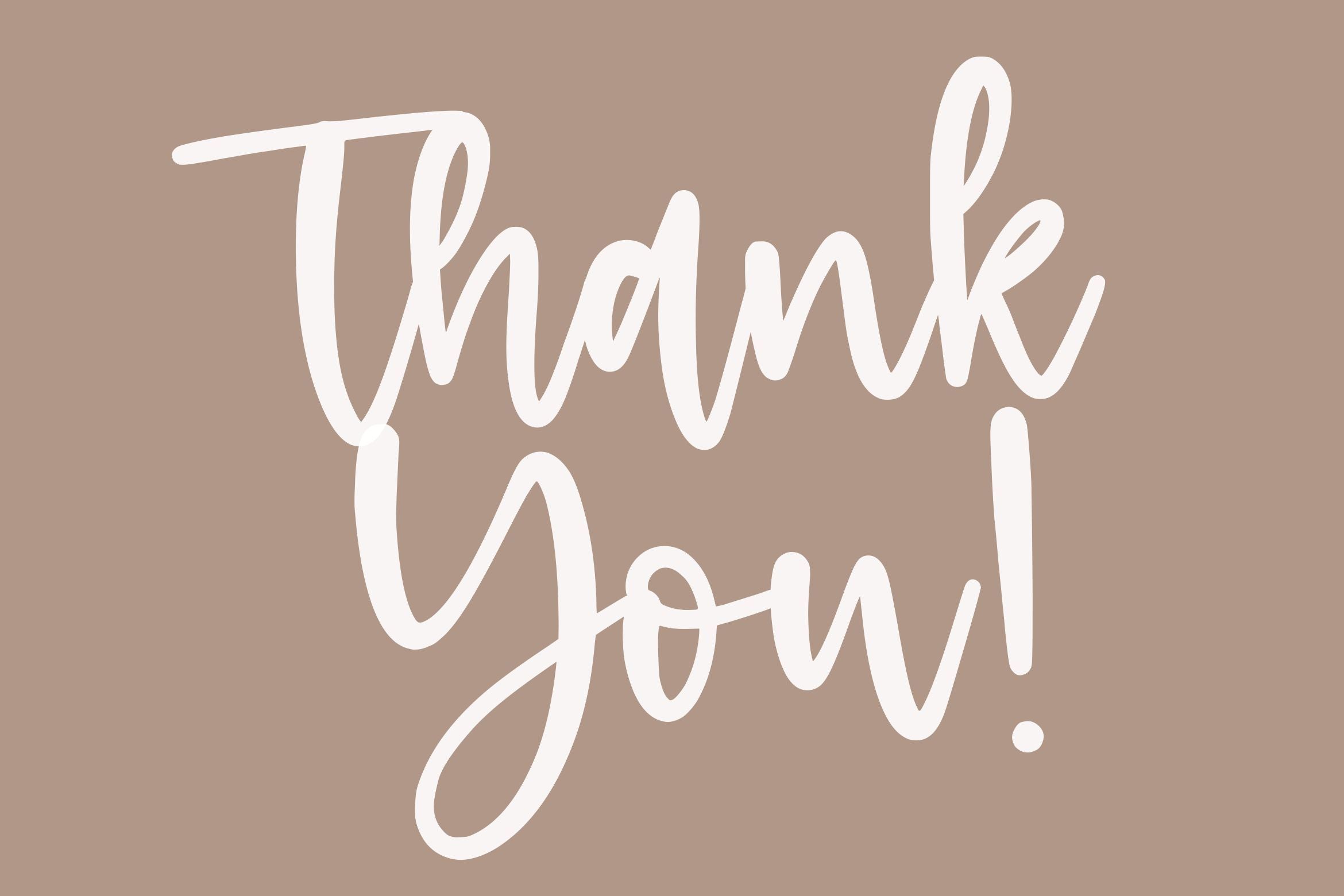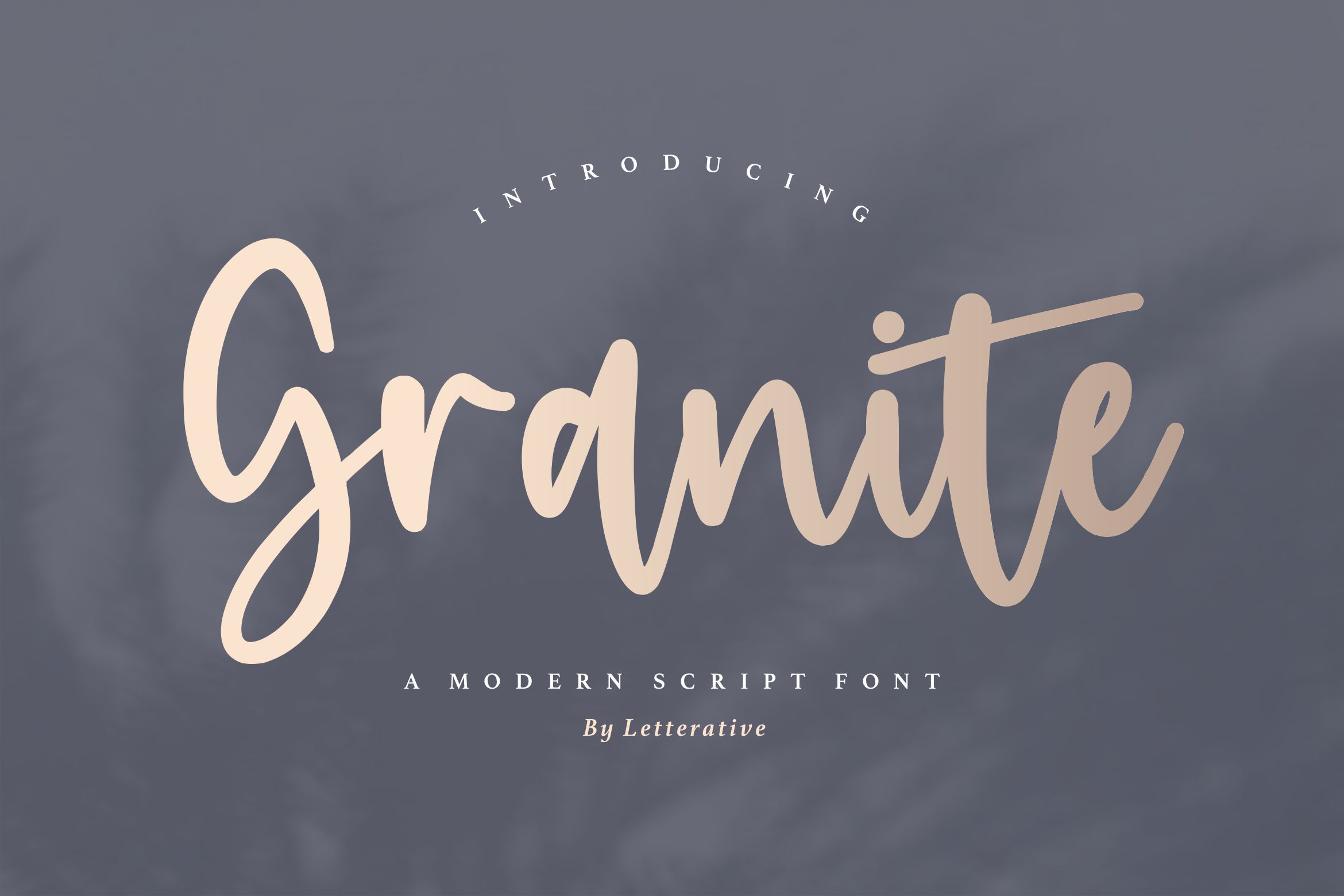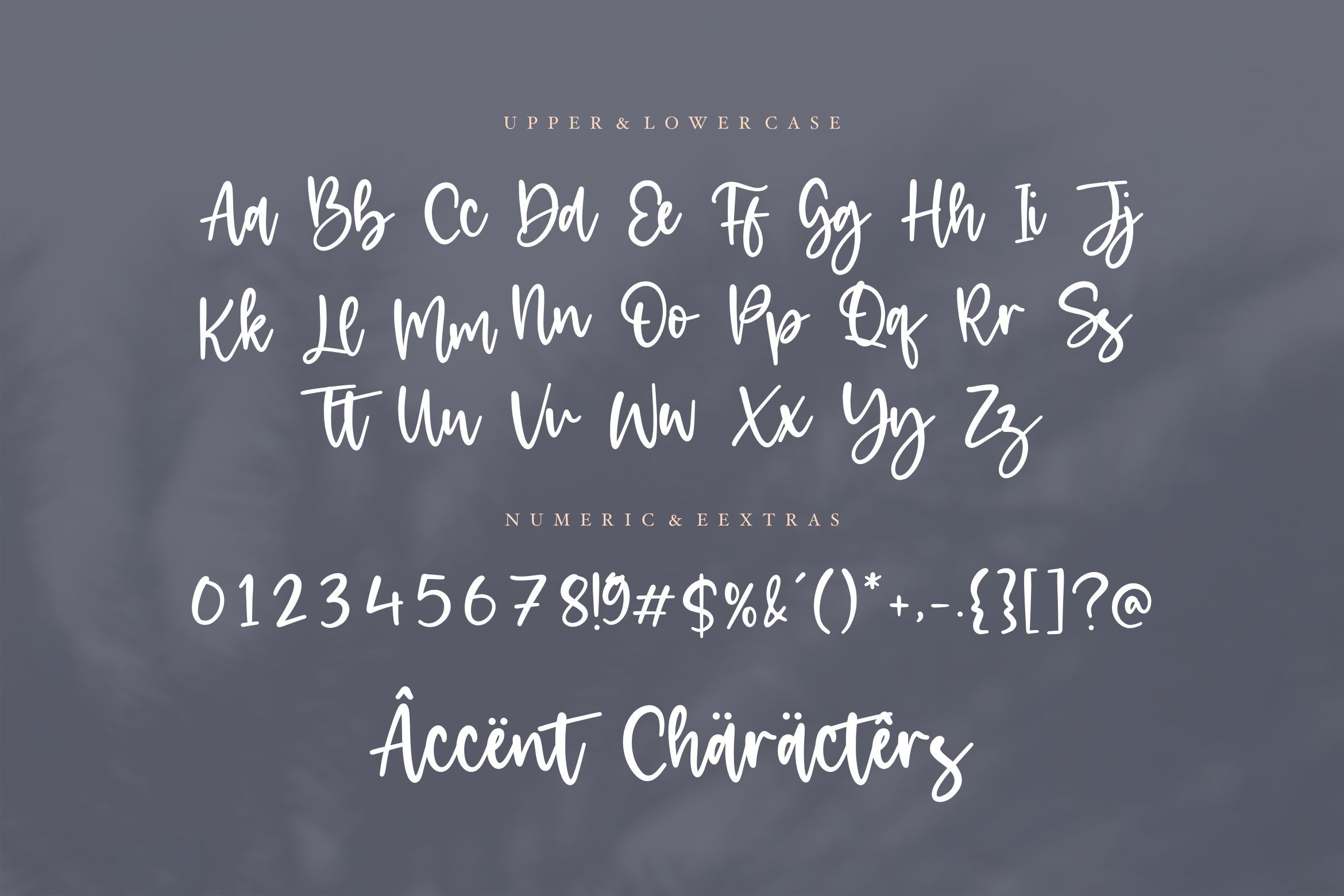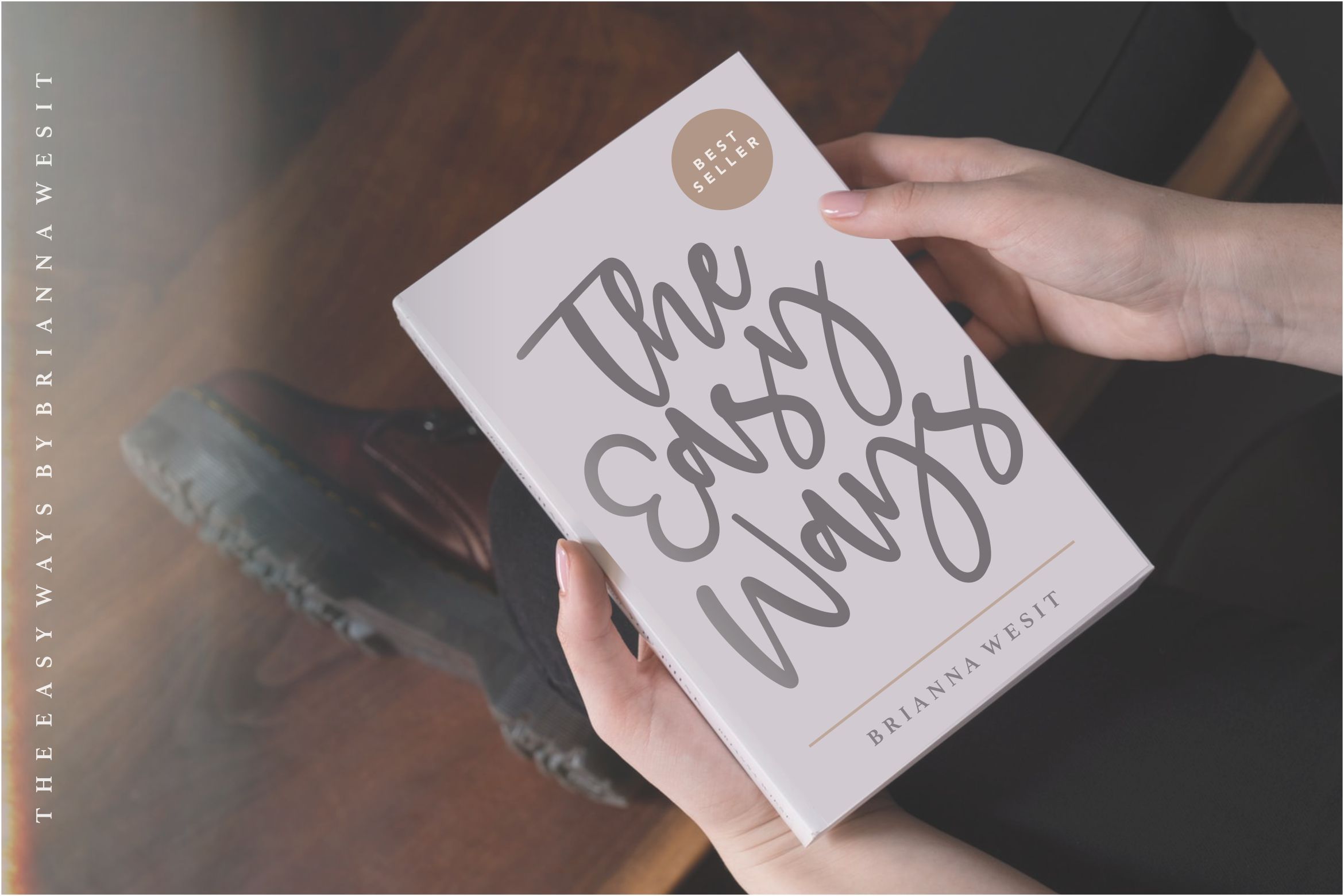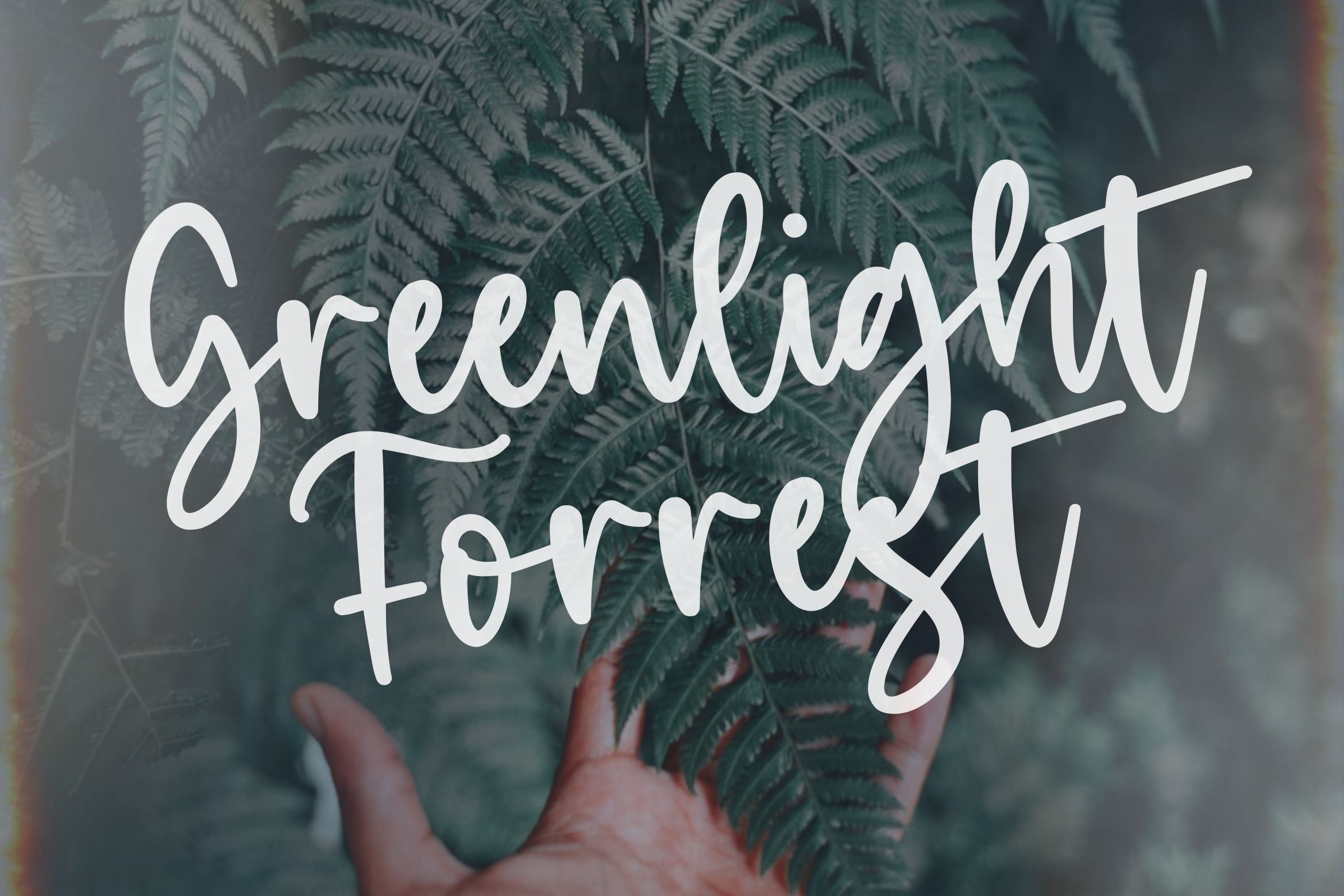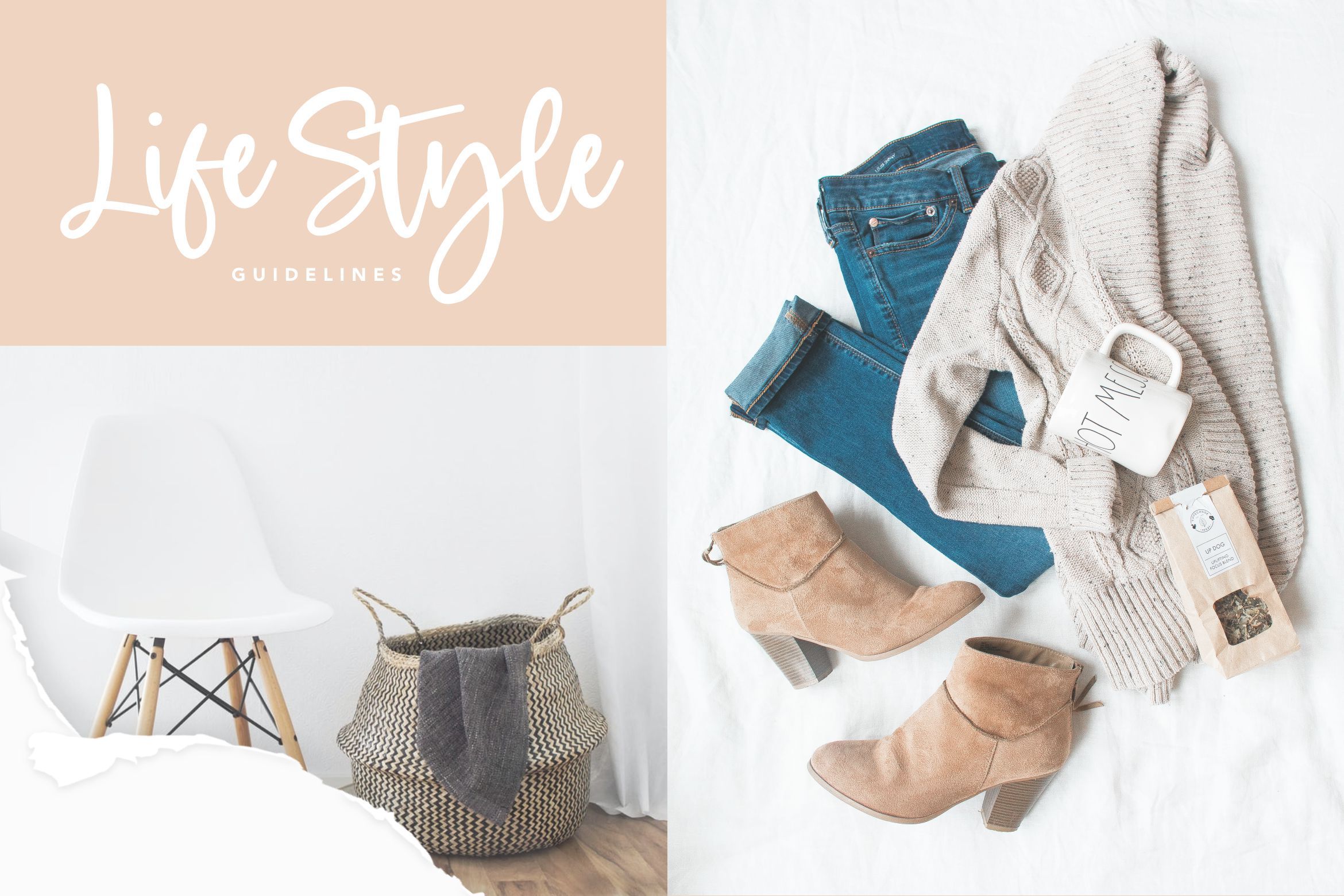
Granite Modern Script Font
About Granite Modern Script Font
Introducing by Letterative Studio : Granite Font Granite is a Modern Script Font Granite is a delicate and elegant handwritten font. Its distinct and well designed letters make this font a masterpiece. Fall in love with its incredibly versatile style and use it to create spectacular designs! This font includes : TTF and OTF Granite also multilingual support Enjoy the font! Feel free to comment or feedback Send me PM or email Thank you!